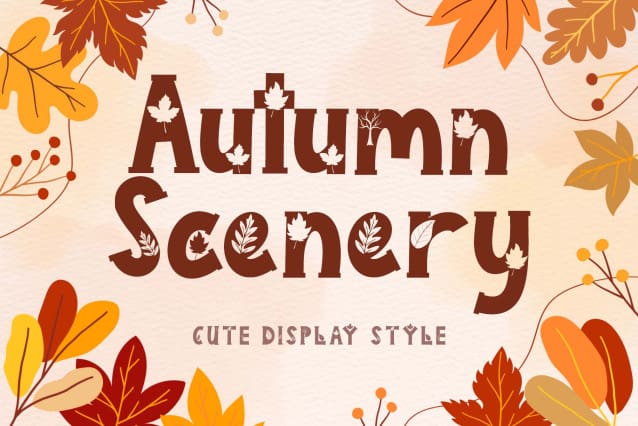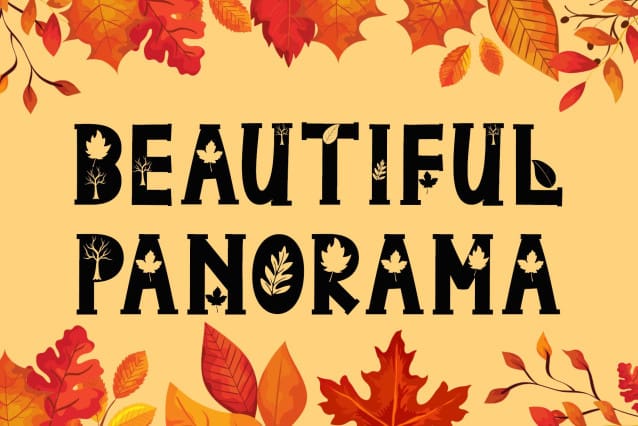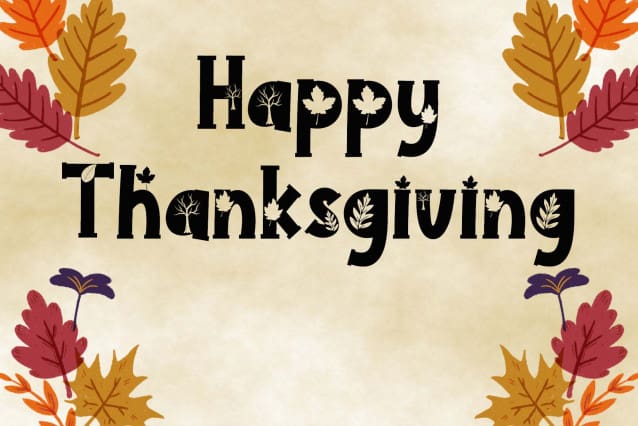
Autumn Scenery Font
Autumn Scenery Font is a beautiful and unique display font. This font is equipped with uppercase, lowercase, numerals, punctuations and multilingual support. It is very suitable for autumn, fall, thanksgiving, halloween, invitations, christmas, valentine, back to school, logos, banners, branding and others.